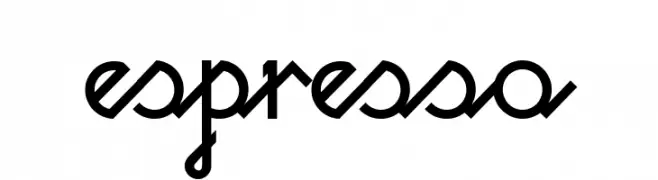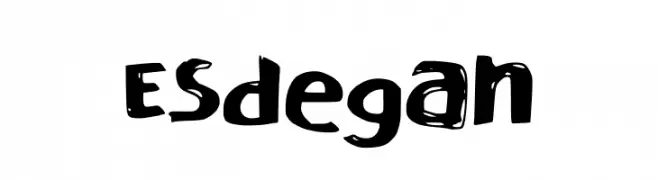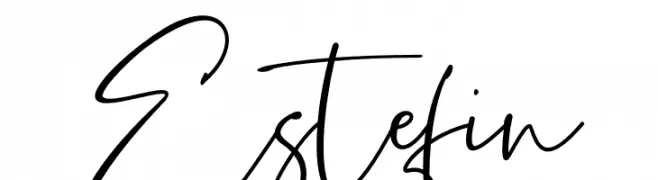
A playful, handwritten font with a quirky and informal style.
A bold, distressed font with splattered, grunge-style characters.
A bold, playful font with a hand-drawn, distressed look.
A bold, distressed font with a vintage, rugged appearance.
A decorative script font with flowing, connected characters and elegant curves.
A modern, cursive font with a handwritten style.
An elegant script font with flowing, cursive letters and a refined, sophisticated style.
A dynamic and flowing script font with elegant curves and pointed edges.